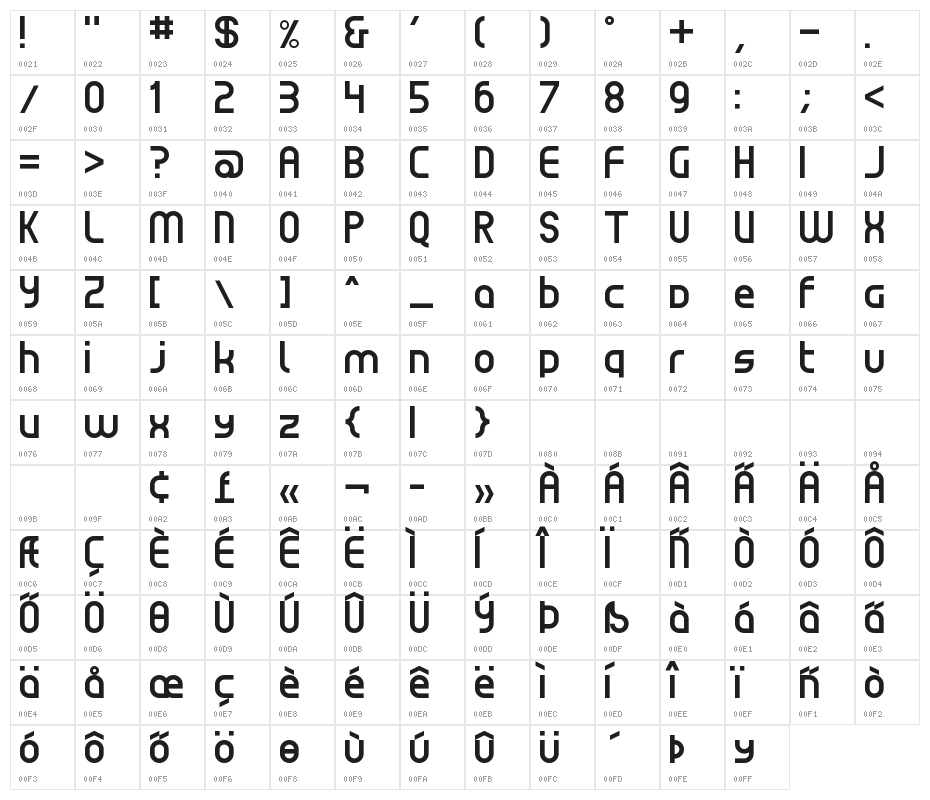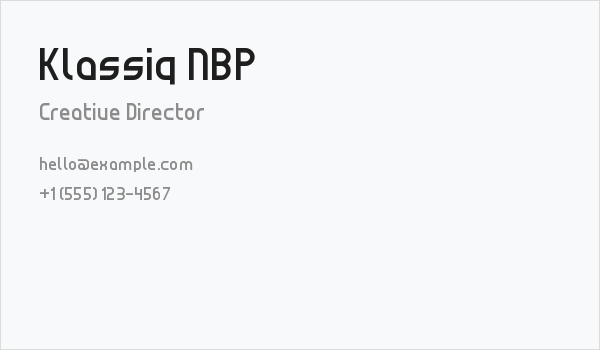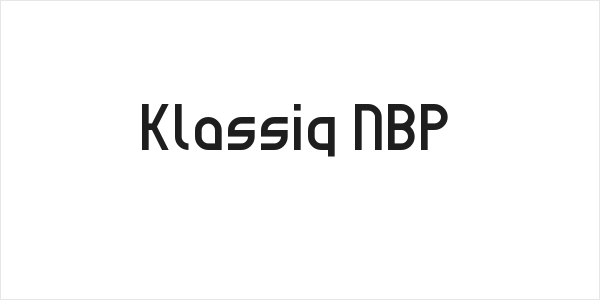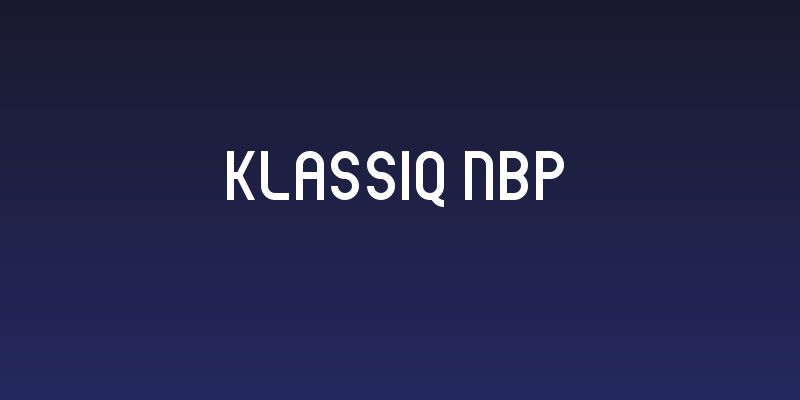
Klassiq NBP Font
Klassiq NBP Description
This font features a modern, geometric design with clean lines and a uniform structure. The characters are well-balanced, with a consistent stroke width that gives it a sleek and contemporary appearance. The uppercase letters are bold and assertive, while the lowercase letters maintain a harmonious flow. The numerals are clear and easily distinguishable, making them suitable for various applications. Special characters are designed to complement the overall style, ensuring versatility in usage. The font's design is both functional and aesthetically pleasing, making it ideal for a wide range of digital and print media.
| Proposed Projects | Ideal for branding, digital interfaces, advertising, and editorial design. |